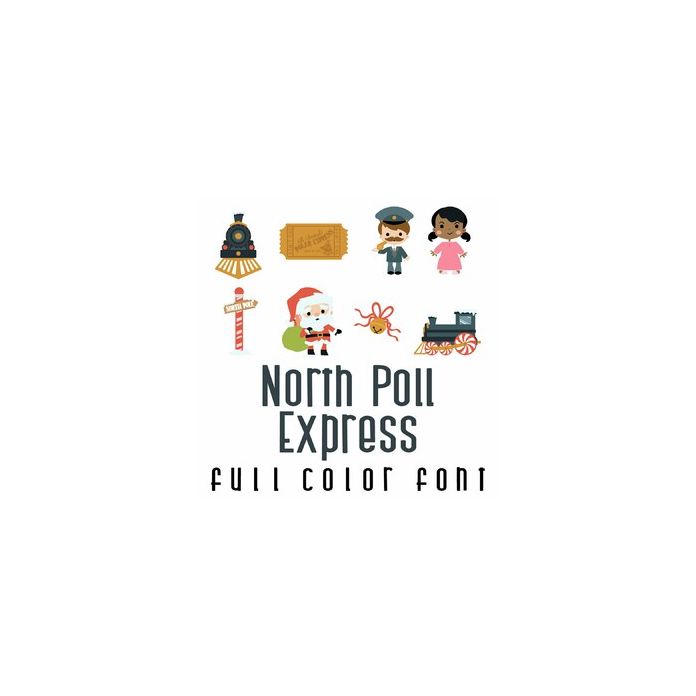
This fun full color doodlebat font features a magical Christmas train theme, with 26 different images. Perfect for cards, crafts, gifts, decor, scrap book pages, planner stickers and more!